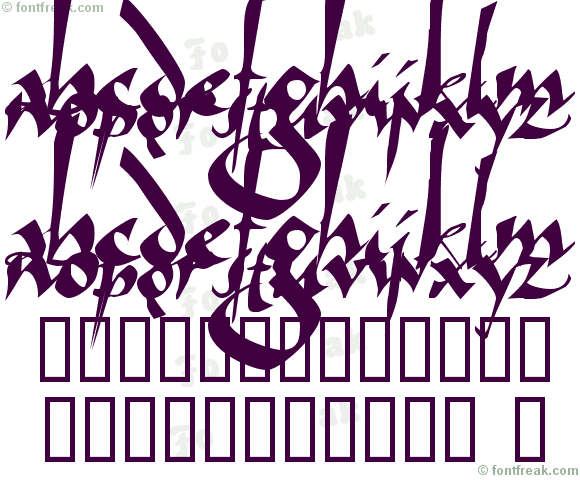
Arthur
The Arthur font by Rob Dobi is a striking display typeface that embodies a unique blend of creativity and boldness. As a decorative font, Arthur stands out with its distinctive character shapes and playful strokes, making it an excellent choice for projects that require a touch of whimsy. The design features varied stroke weights and an engaging contrast that adds depth and personality to your text. Its ample spacing enhances readability while maintaining a lively aesthetic, making it both functional and visually appealing.
This font is particularly suited for a variety of creative applications. Designers looking to create eye-catching wedding invitations will find Arthur’s unique flair perfect for setting a festive tone. Its playful nature also makes it ideal for movie posters, where capturing attention is crucial. Additionally, restaurant menus can benefit from the font's inviting appearance, enticing diners with visually appealing dish descriptions. Content creators seeking to make their social media graphics pop will appreciate the font’s ability to convey personality and style with ease.
What truly sets the Arthur font apart is its ability to combine playfulness with professionalism, providing a versatile tool for a wide range of design needs. Whether you are crafting a casual flyer or a sophisticated branding project, the Arthur font free download ensures you have a unique typographical asset at your disposal, ready to elevate your creative endeavors.